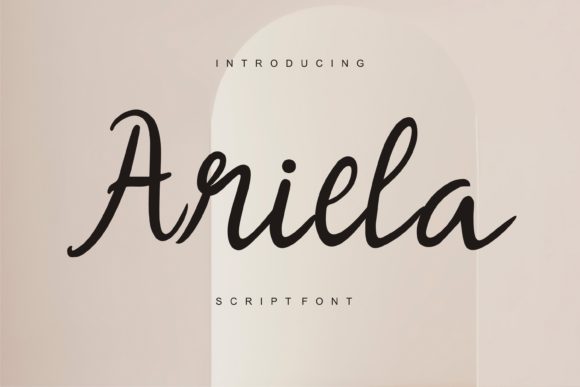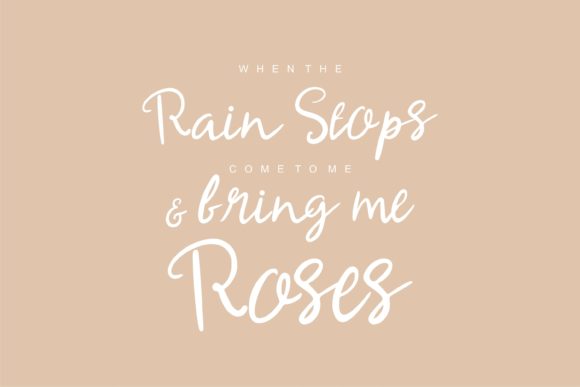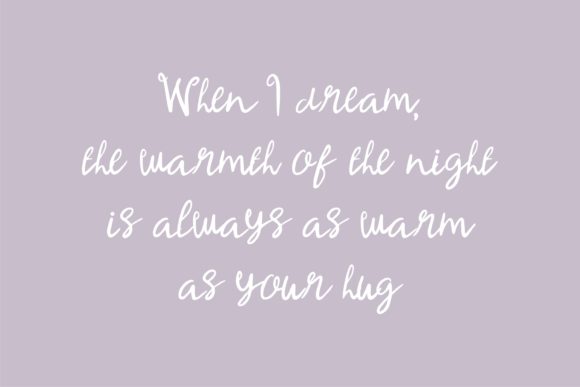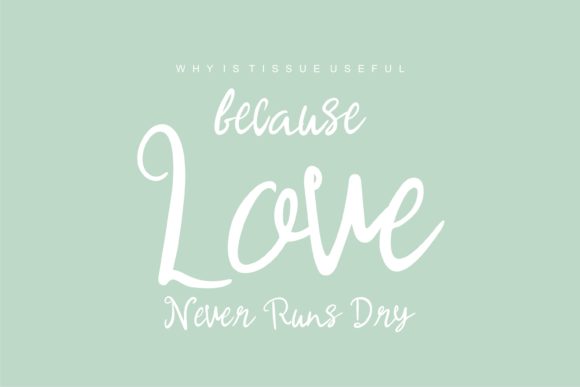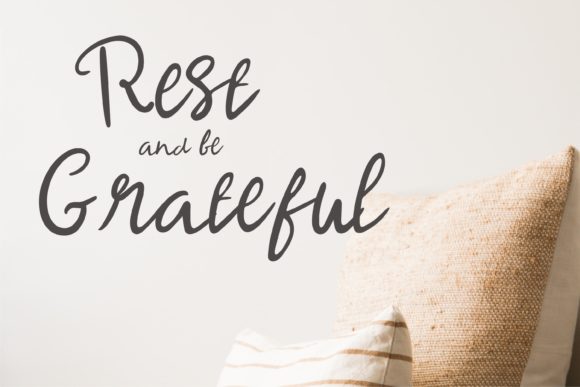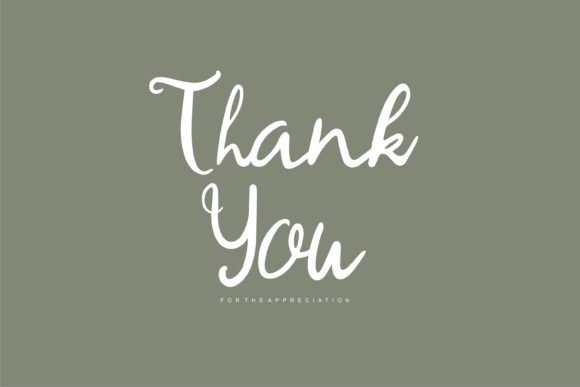
Script Fonts Ariela Font 0 149 FacebookTwitterPinterestWhatsApp 1 of 6 Ariela Font Poster 2... Ariela Font Poster 3... Ariela Font Poster 4... Ariela Font Poster 5... Ariela Font Poster 6... About Ariela Font Ariela is a flowing and delicate script font. It has beautiful and well balanced characters and as a result, it matches a wide pool of designs. Add it to your most creative ideas and notice how it makes them come alive! DOWNLOAD NOW